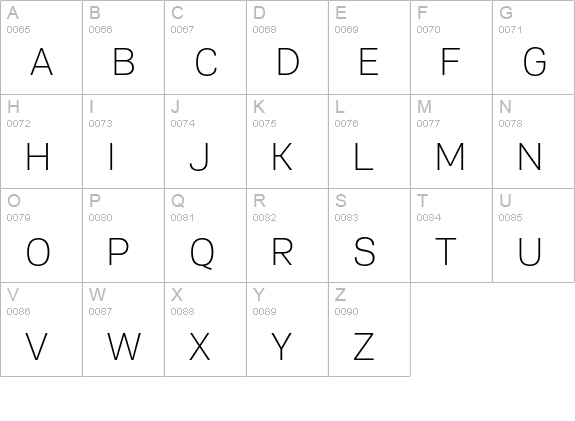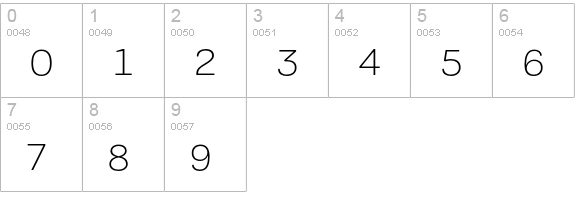
PFEncoreSansPro-Thin is a delicate, low-contrast variant in the PFEncoreSansPro typeface family \xE2\x80\x94 well suited to fashion editorial, minimal branding, and high-contrast display.
PFEncoreSansPro-Thin is a modern and elegant typeface that exudes sophistication and style. With its sleek lines and minimalist design, this font is perfect for creating clean and contemporary designs. The Thin weight adds a touch of delicacy and refinement to any project. What's even better is that PFEncoreSansPro-Thin is available for free download at FontsMarket.com. This means that you can easily access this high-quality font without any cost. Whether you're working on a branding project, website design, or any other creative endeavor, PFEncoreSansPro-Thin is a versatile choice that will elevate your work to the next level. Download it now and experience the beauty and versatility of this stunning typeface.